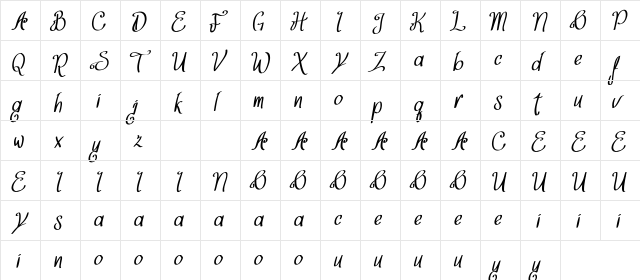
Think Dreams Demo Italic
| Foundry | Edric Studio |
| Designer | Aghnia Nurul Yasmine |
Design Context for Think Dreams Demo Typeface
Think Dreams Demo is a composed and adaptable typeface that performs quietly and consistently across a wide range of design contexts. Its italic angle brings a sense of urgency and motion to the letterforms. Its slender proportions lend an understated elegance to any composition.